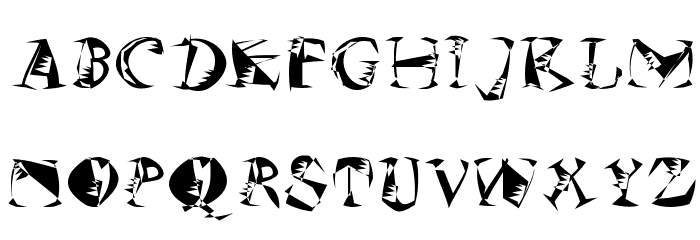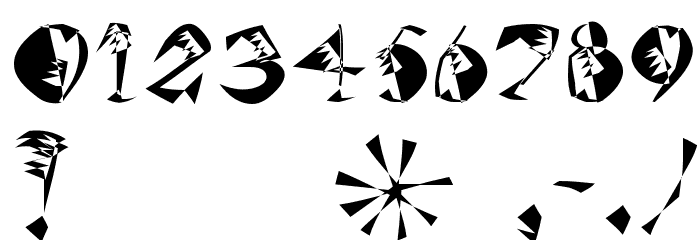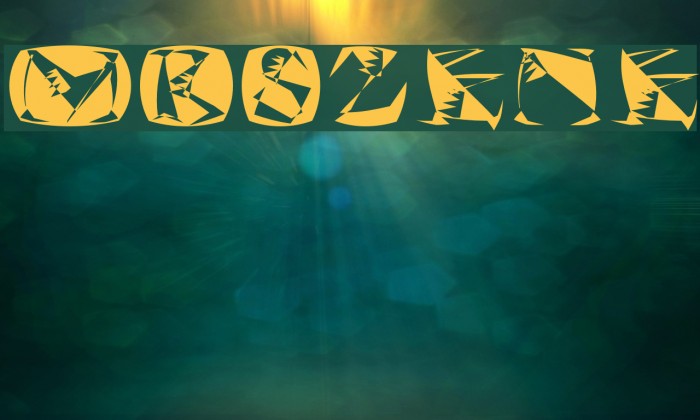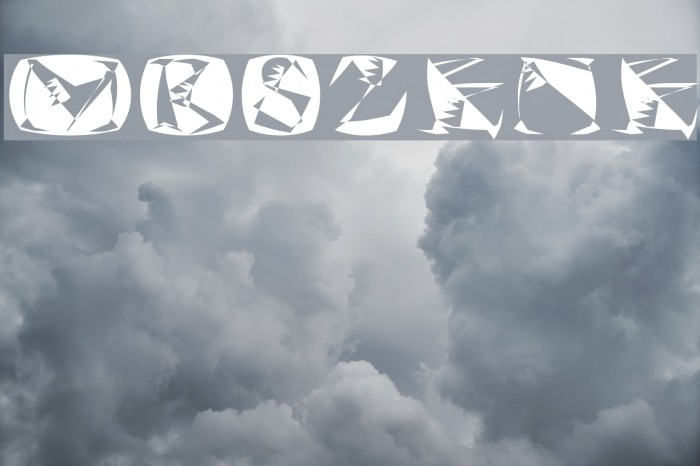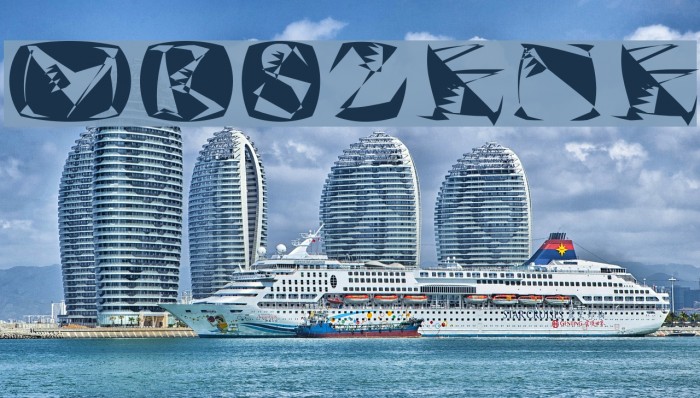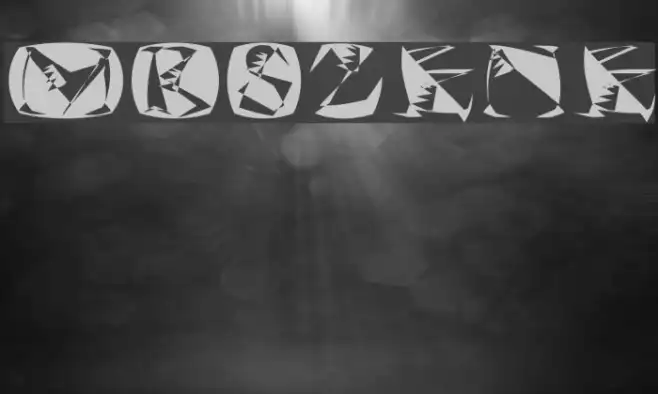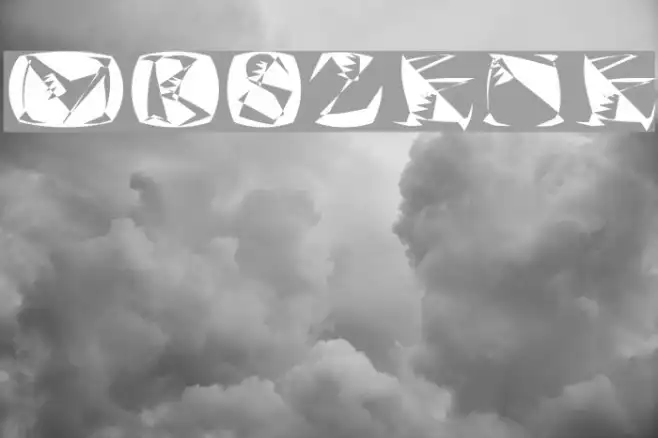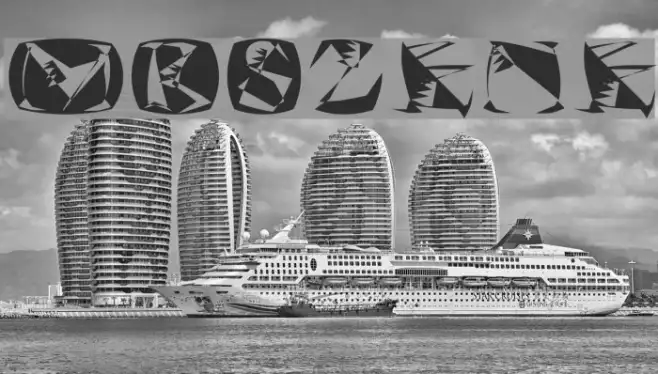
MKSzene Font
This font features a highly decorative and abstract style, characterized by its fragmented and angular design. Each character appears as if it has been shattered or sliced, creating a dynamic and edgy appearance. The bold and irregular shapes give it a distinctive look that stands out, making it ideal for attention-grabbing designs. The uppercase and lowercase letters maintain this fragmented aesthetic, while the numbers and special characters follow suit, ensuring consistency across the entire typeface. The font's unique style makes it suitable for creative and unconventional projects.
A bold, fragmented, and abstract decorative font with an edgy style.
- Proposed Projects: Ideal for album covers, posters, modern art projects, and edgy branding.
- Overall Style: Modern, Decorative